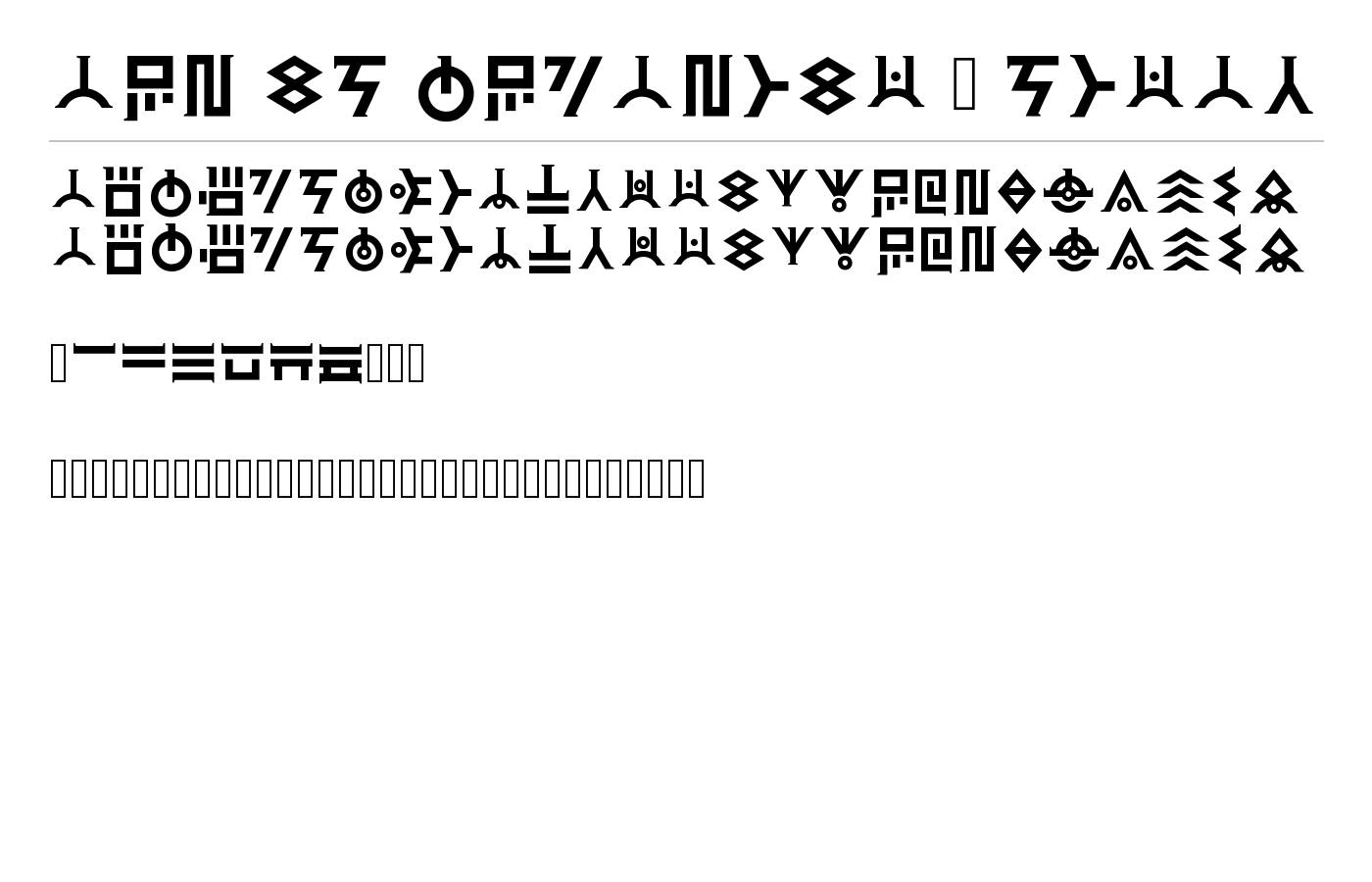
Art Of Creation _ Final Font is a bold, geometric display typeface with a strong futuristic and techno vibe. Its unique, angular glyphs and solid black weight give it a distinctive, sci-fi appearance, making it ideal for logos, posters, and branding that seek a modern, cutting-edge look with an abstract, almost cryptic personality. This font works best in large sizes where its intricate shapes can be fully appreciated, making it perfect for creative projects in technology, gaming, and experimental design.
Art Of Creation _ Final Font
About Art Of Creation _ Final Font